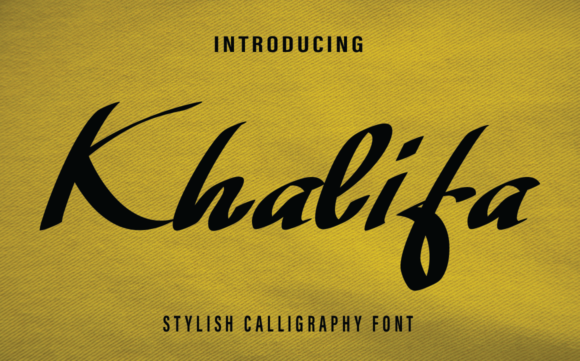
Introducing the Khalifa Font, a resplendent script font crafted by the ingenious Farz Studio, designed to bring an aura of elegance and sophistication to your creative endeavors. Its meticulously crafted letters exude a captivating charm, flowing seamlessly with a graceful dance that mimics the strokes of a fine calligraphy brush.
Immerse yourself in the world of Khalifa, where each letter is a masterpiece, meticulously designed to evoke a sense of timeless beauty. Its alluring curves and graceful lines beckon you to create designs that transcend the ordinary, capturing the hearts and imaginations of all who behold them.
Be it a Christmas bag yearning for a touch of enchanting artistry or a wedding invitation seeking a whisper of heartfelt elegance, Khalifa rises to the occasion with unwavering grace. Its versatility knows no bounds, effortlessly adapting to a myriad of projects, each one adorned with a touch of exquisite charm.
With Khalifa as your creative companion, you hold the power to transform the mundane into the magnificent. Its enchanting presence will elevate your designs to new heights, leaving an indelible mark on the hearts and minds of those who encounter them.
Embark on a creative odyssey with Khalifa, and let your imagination soar. Its timeless beauty and captivating elegance await your artistic touch, ready to transform your projects into works of art that speak volumes.